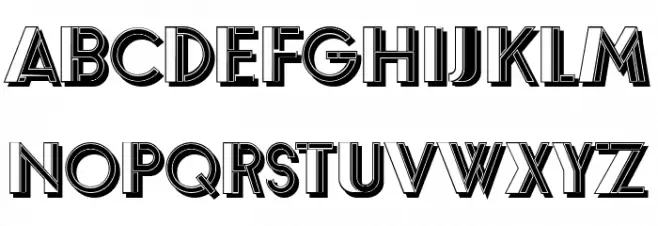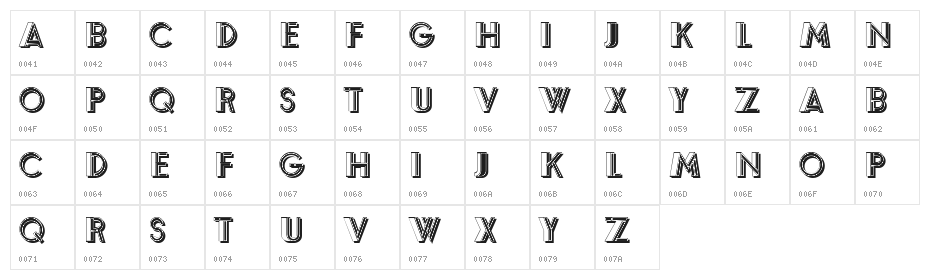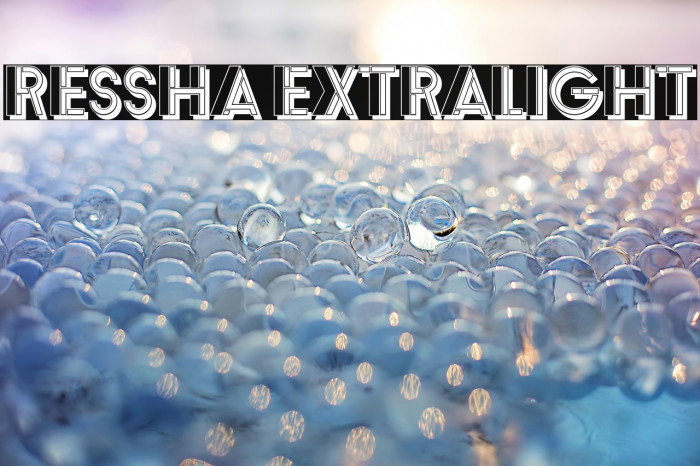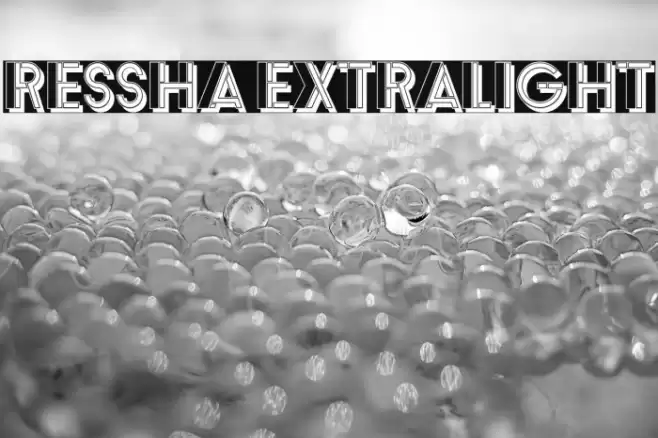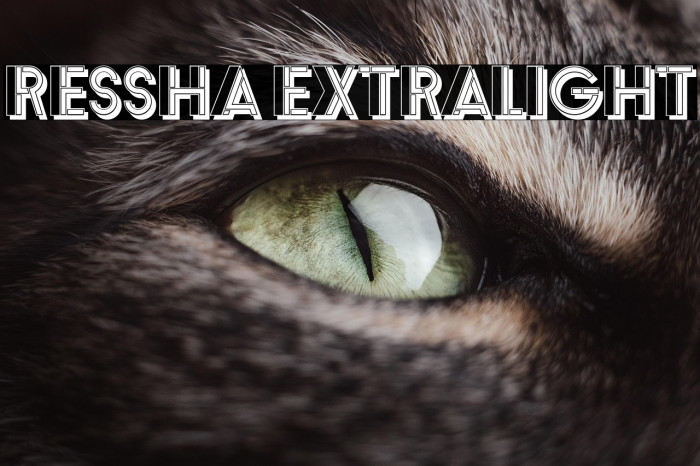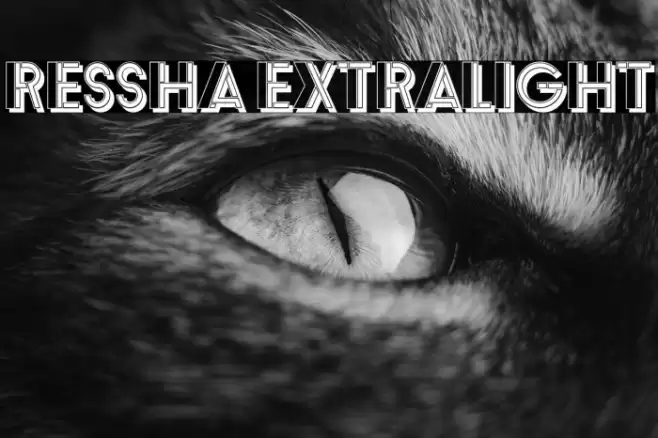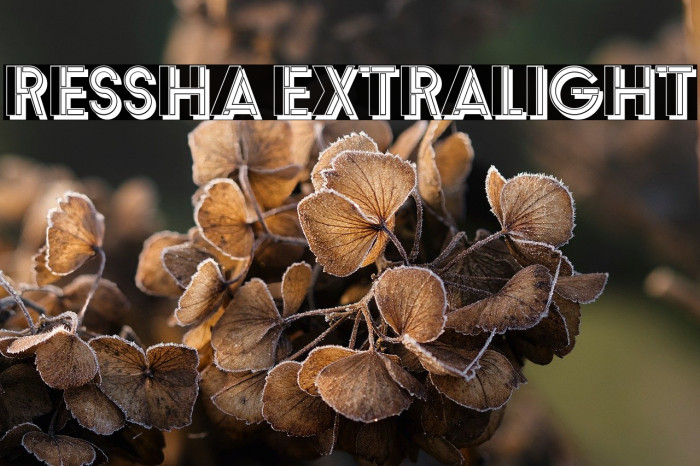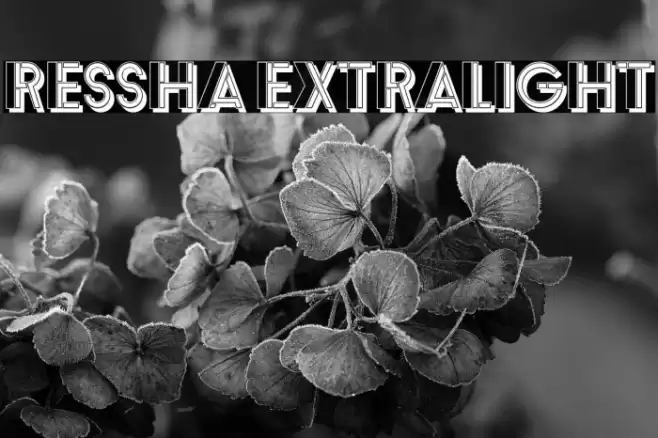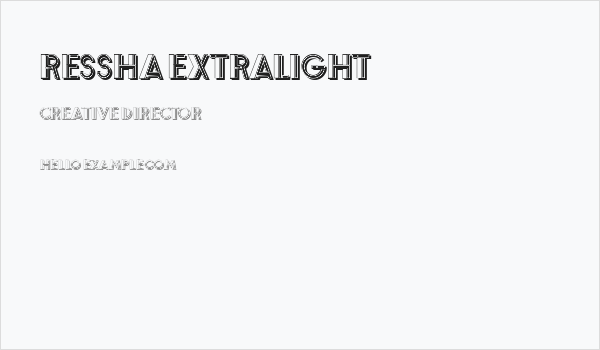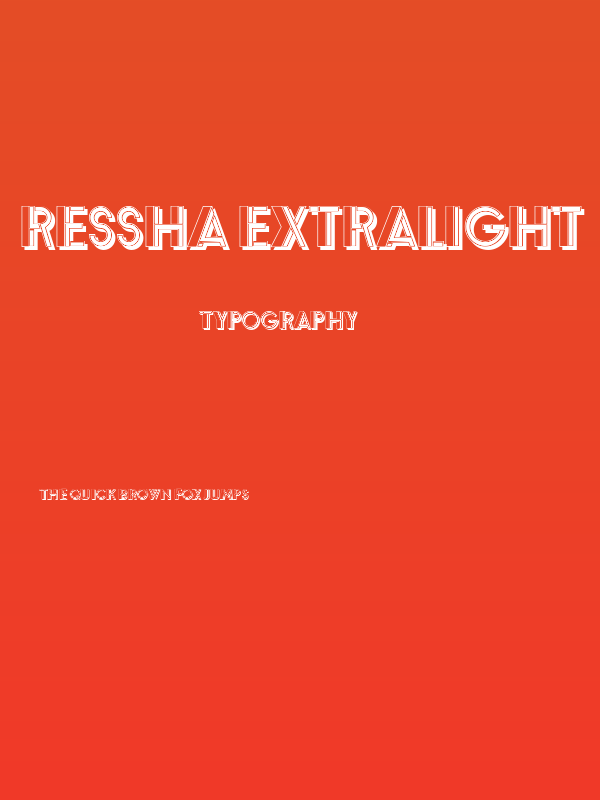
Ressha ExtraLight Font
Ressha ExtraLight Description
This font features a bold, geometric design with a strong emphasis on angular lines and sharp edges. The characters are outlined with a double-layered effect, creating a sense of depth and dimension. Each letter is crafted with precision, maintaining a consistent width and height across the set. The style is reminiscent of industrial and architectural themes, making it stand out with its unique, modern appeal. The font's structure is clean and uncluttered, allowing for easy readability while still offering a distinctive visual impact. Its boldness and clarity make it suitable for attention-grabbing headlines and titles.